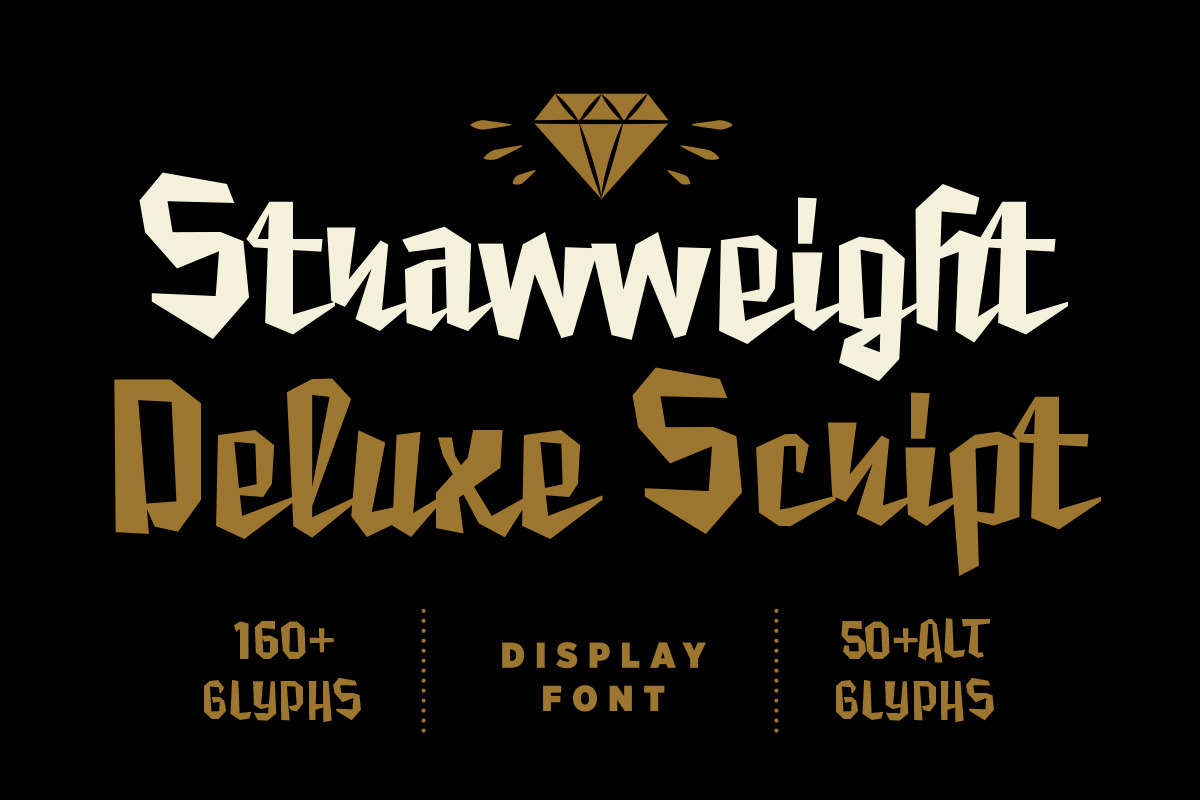
Strawweight Script Font
Strawweight is a rough chunky script based on folded and contorted straws. Perfect for logo, branding and apparel design, Strawweight lends a more tactile hand-drawn aesthetic to your work with tons of alternate glyphs for easy customisation.
Features: Uppercase & Lowercase Punctuation & Numbers 160+ Alternate Glyphs 50+ Alternate Glyphs